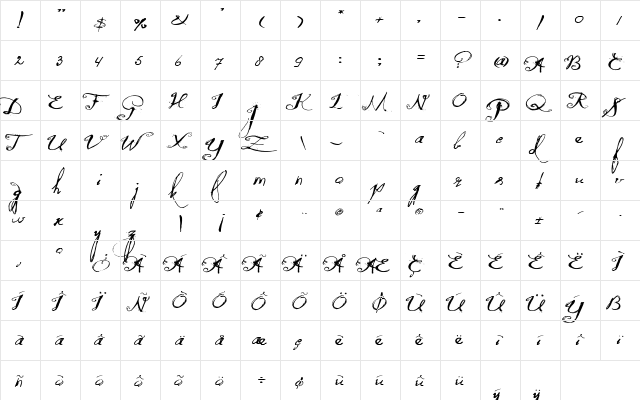
Quilted Butterfly Regular
| Foundry | David Kerkhoff |
| Designer | David Kerkhoff |
Design Context for Quilted Butterfly Typeface
Quilted Butterfly is a composed and adaptable typeface that performs quietly and consistently across a wide range of design contexts.